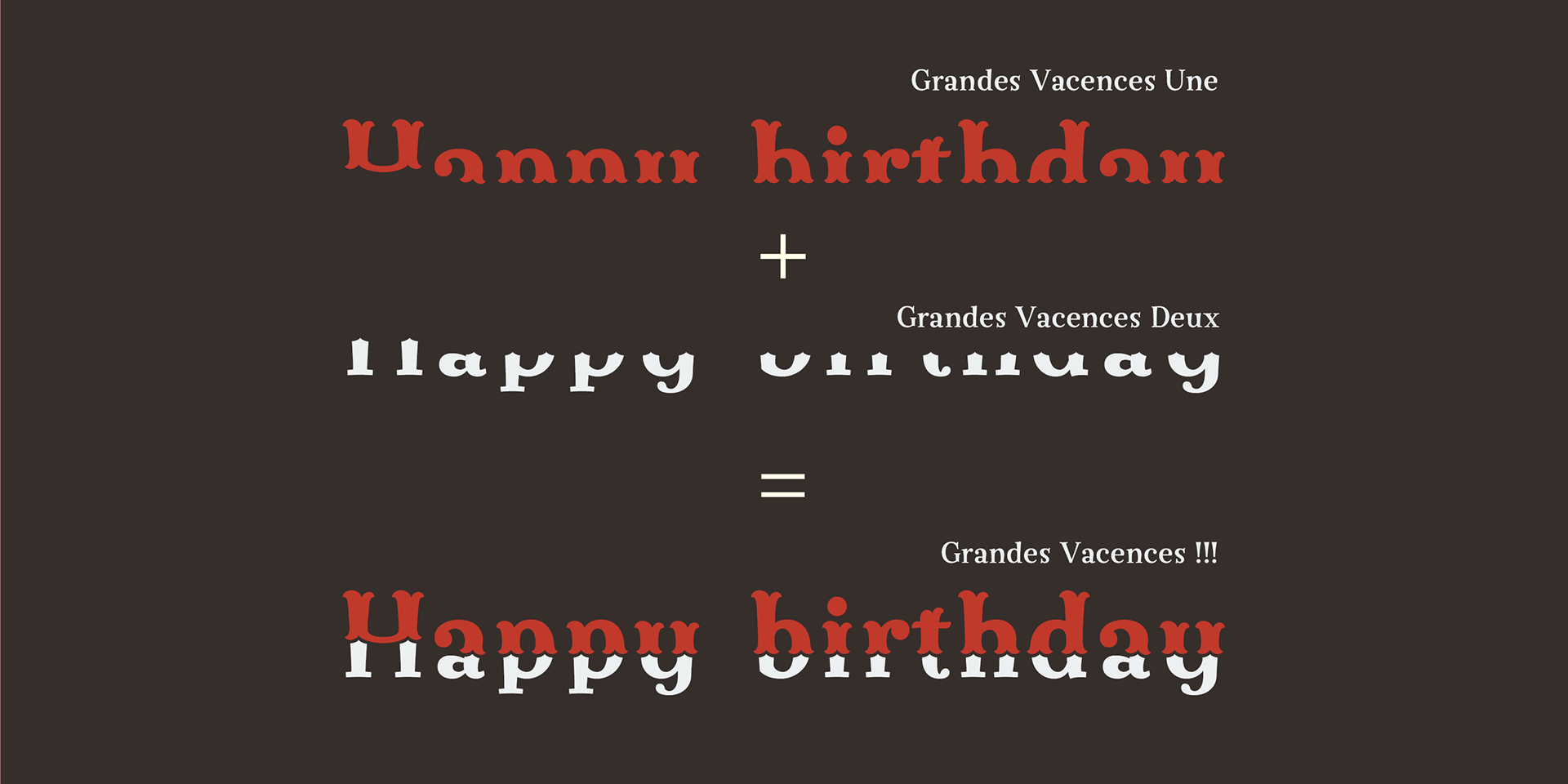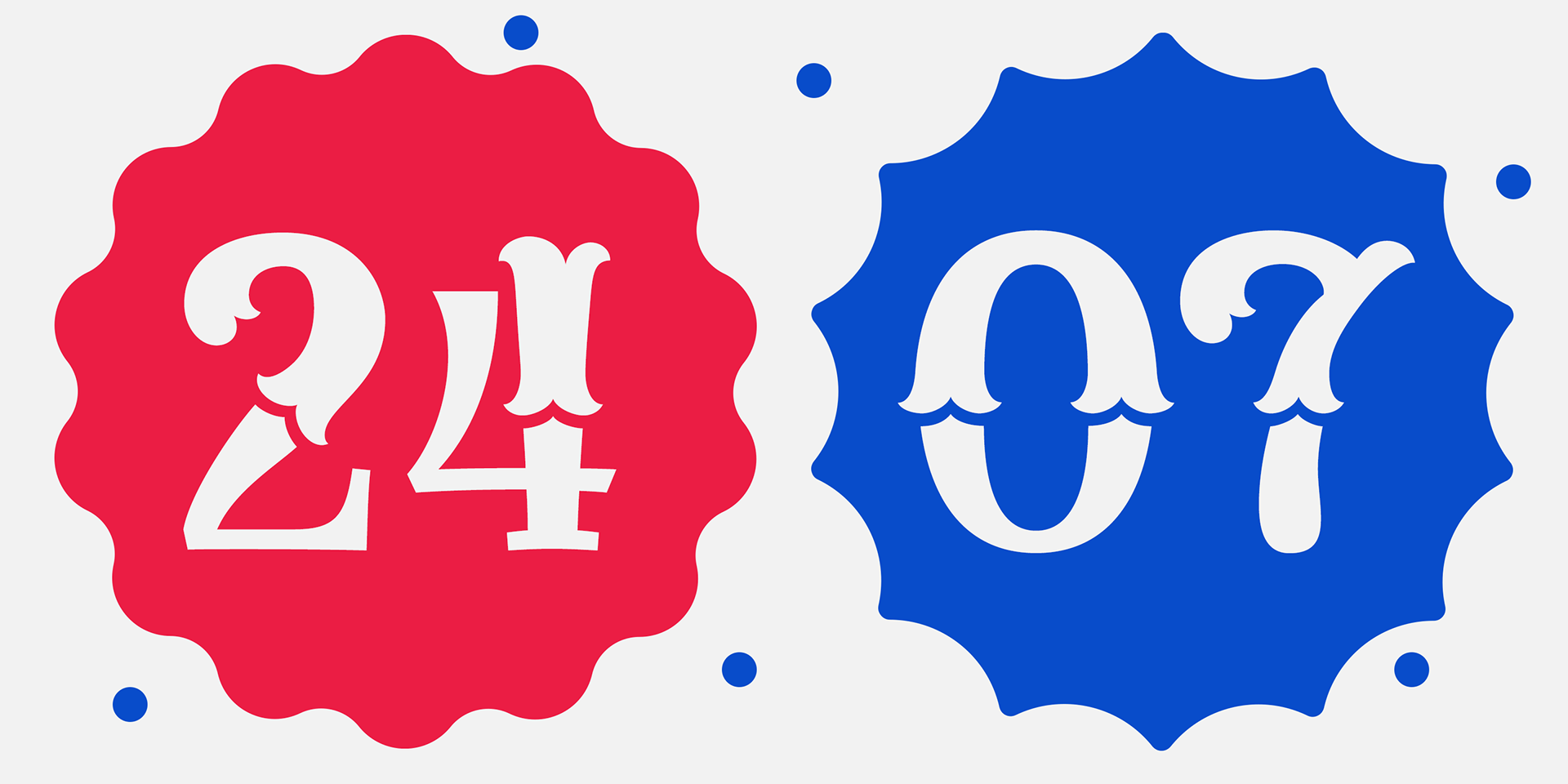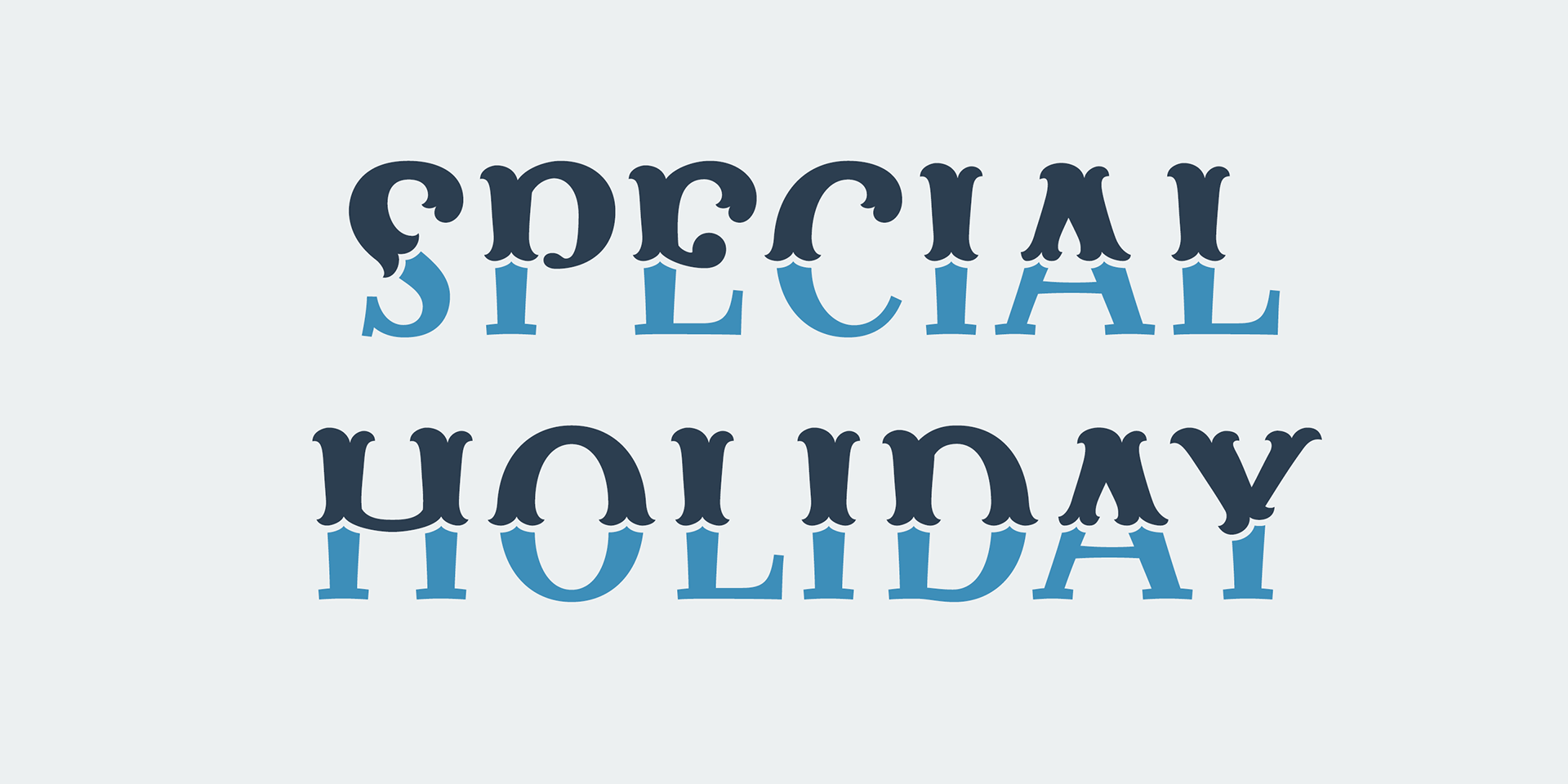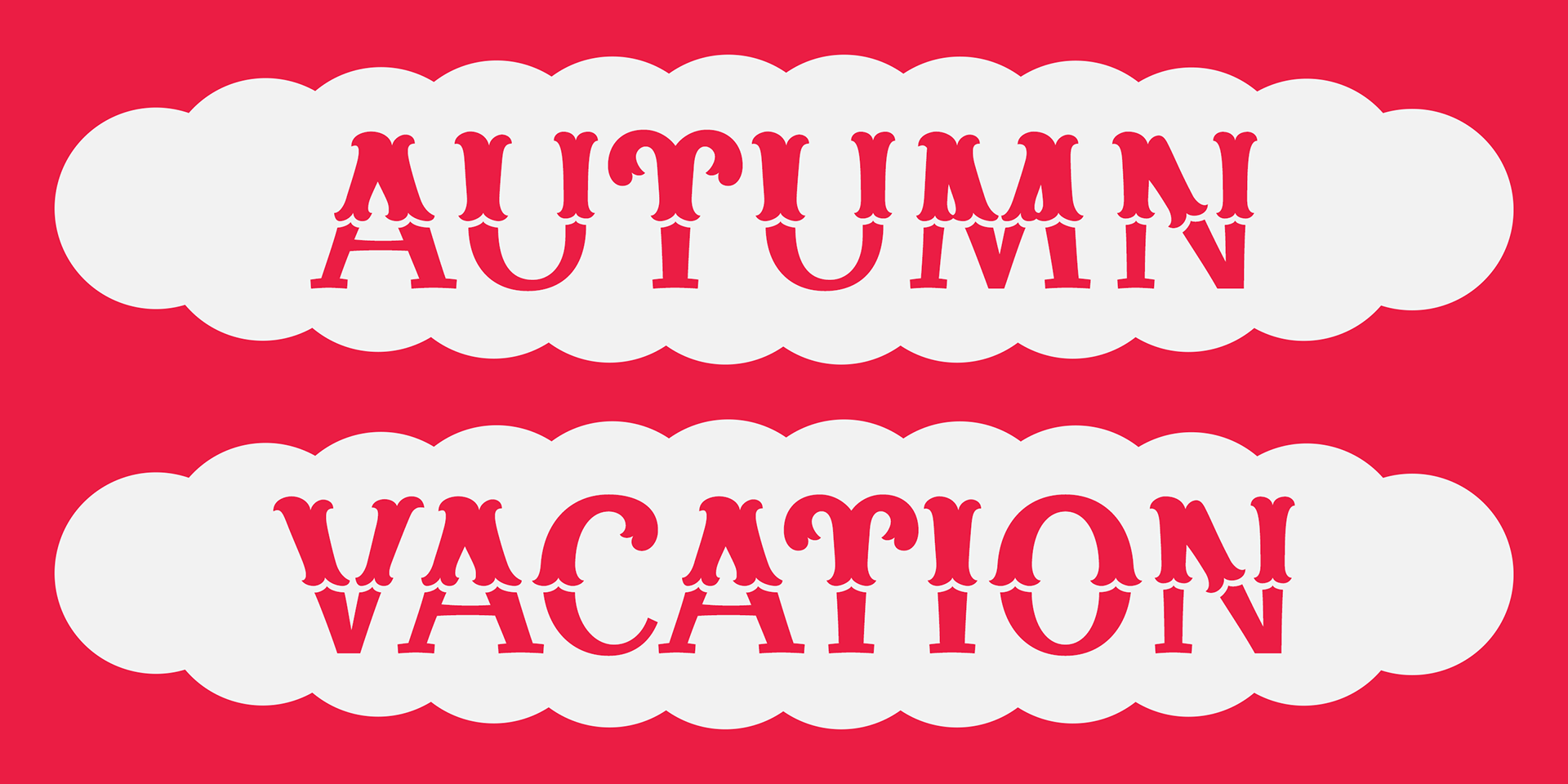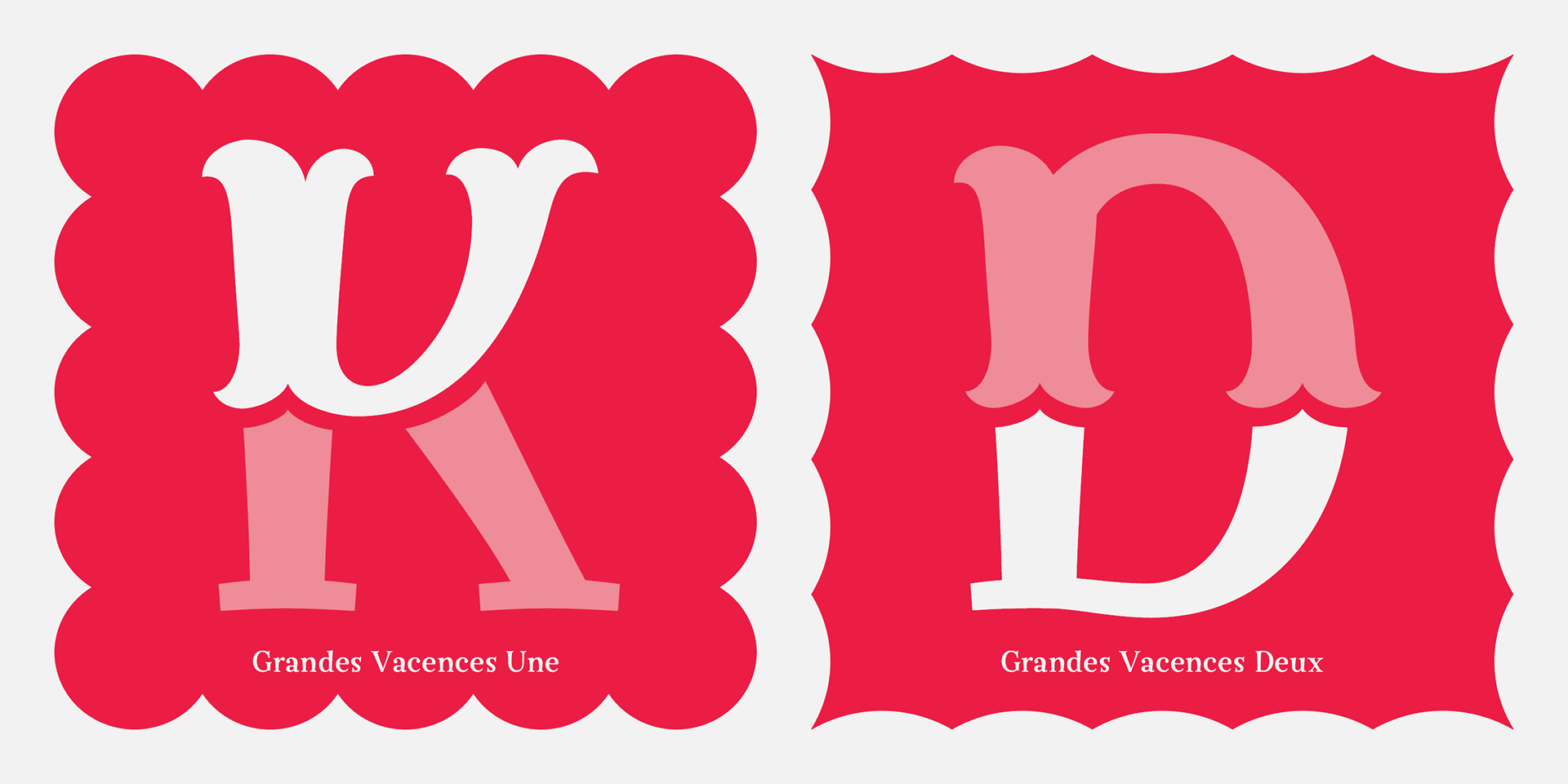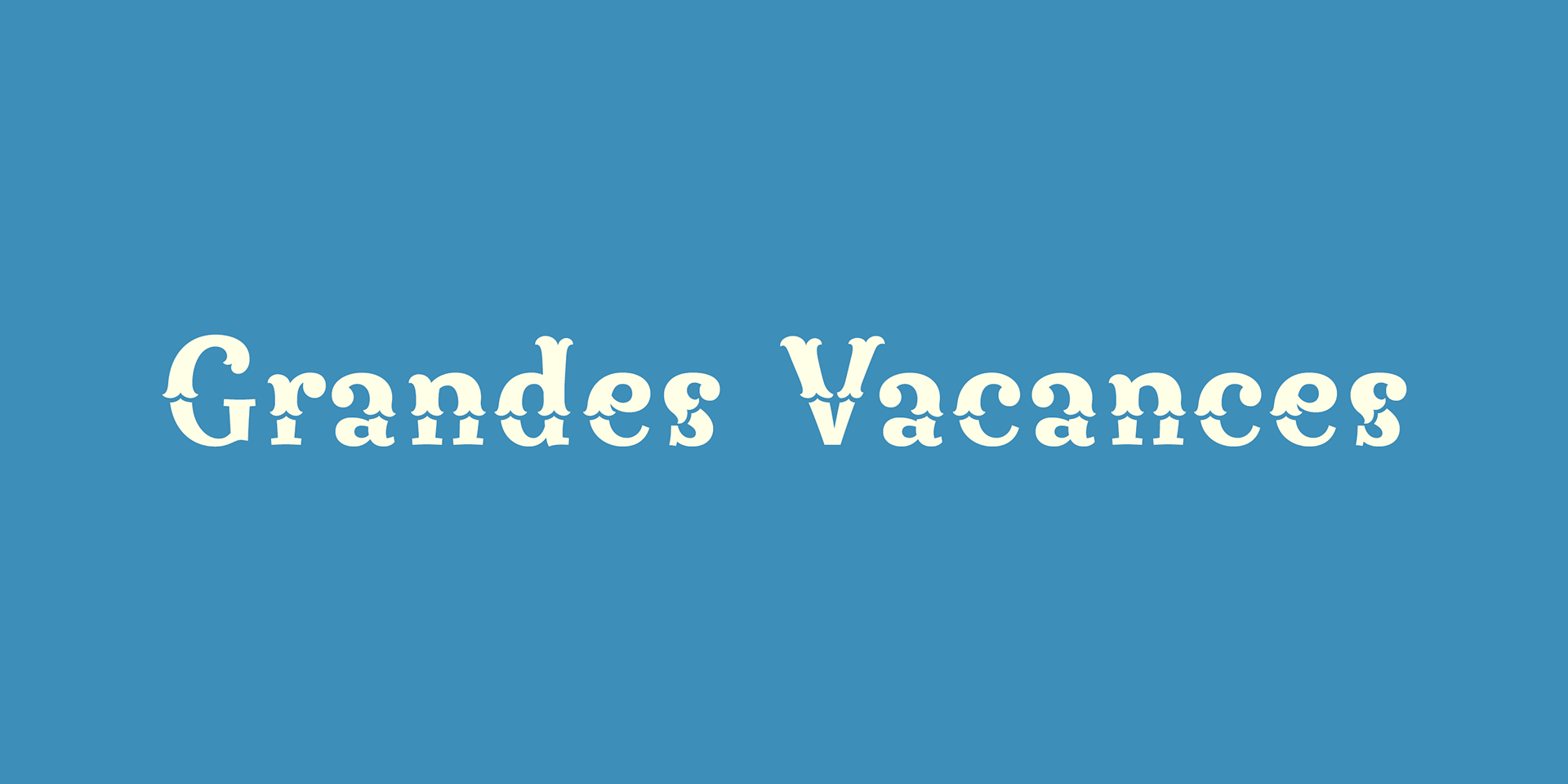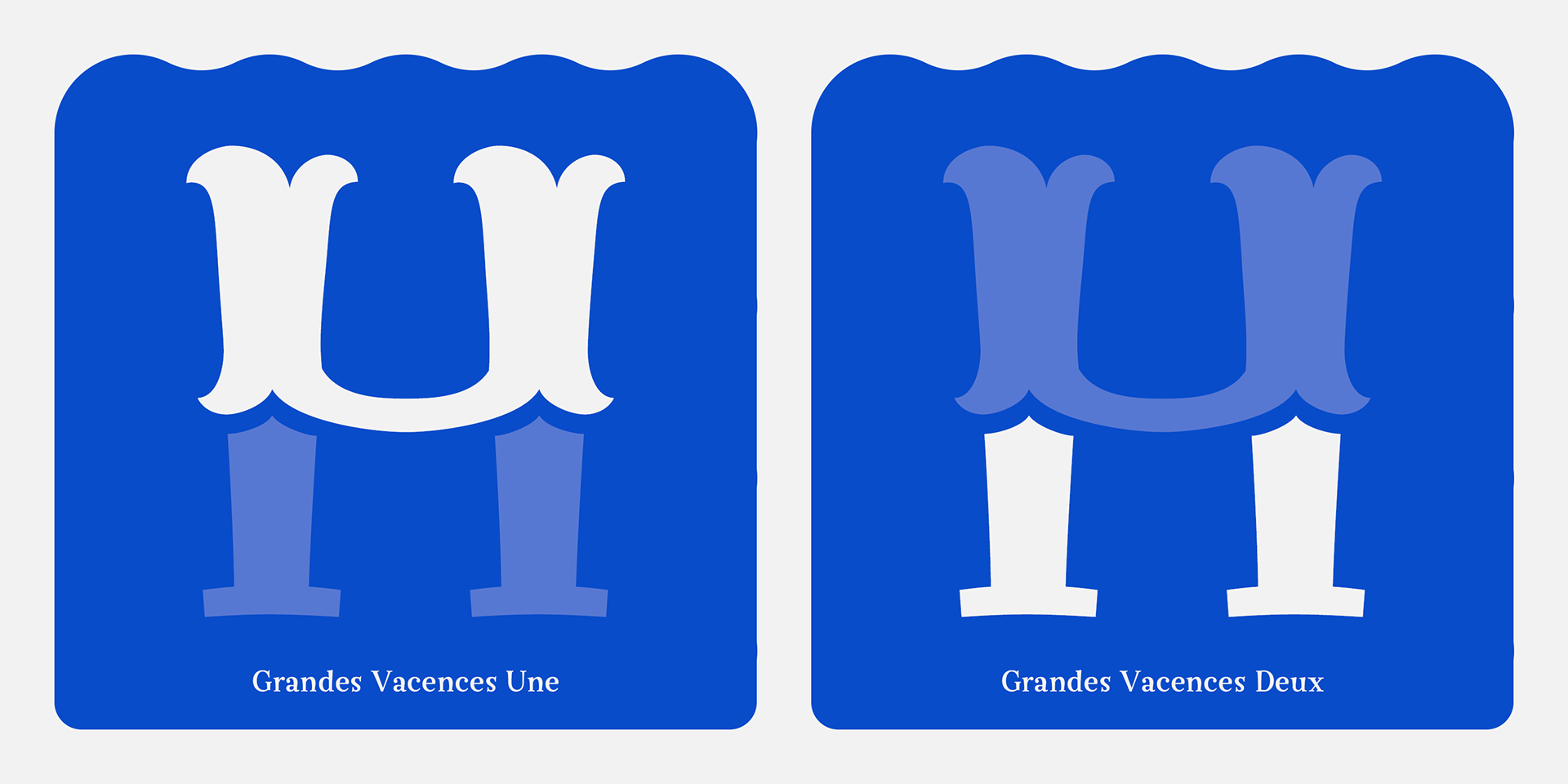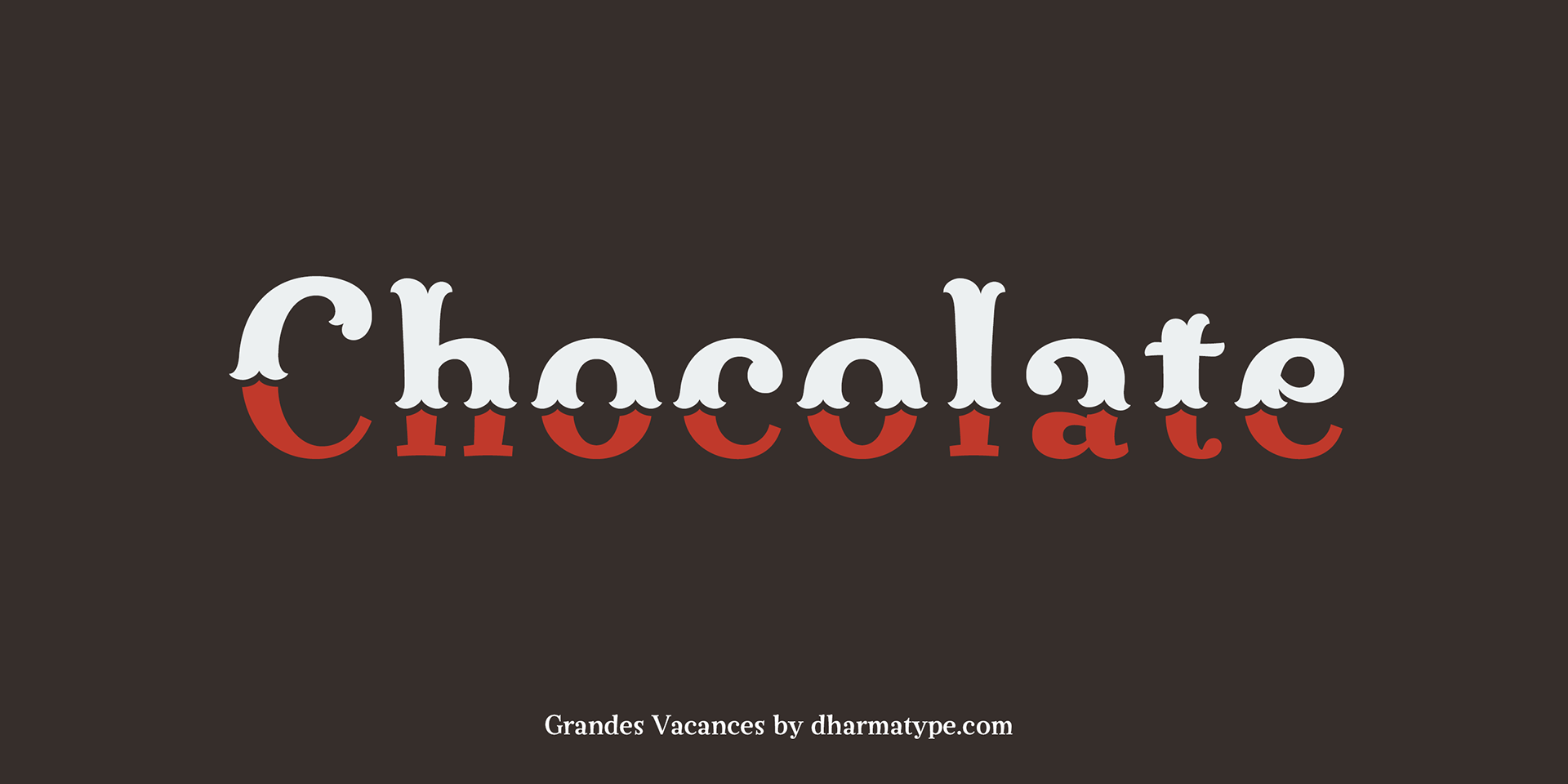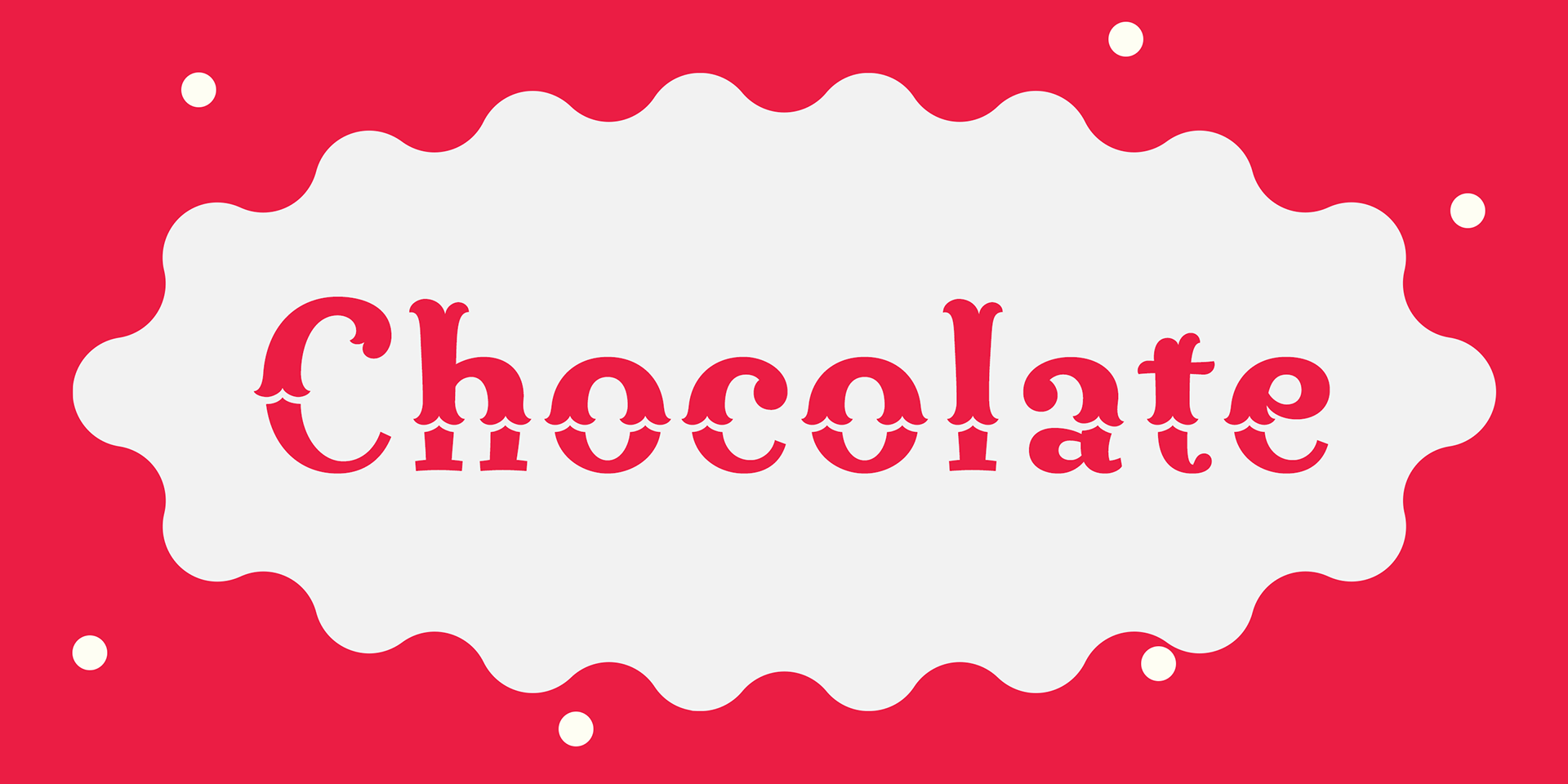
Grandes Vacances
This wood type is one of the most distinctive Wild West–style Tuscan fonts out there.
No other decorative Tuscan or wood type combines charm and sweetness quite like this font family—bold, playful, and irresistibly cute.